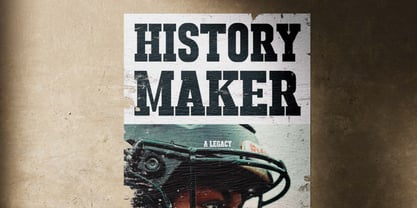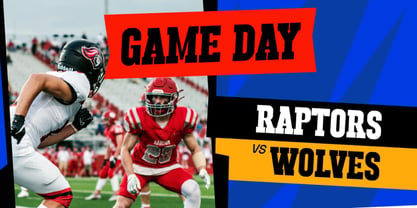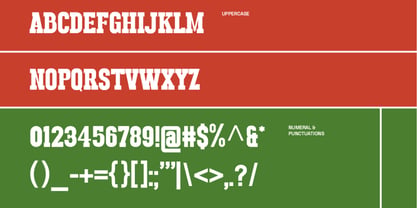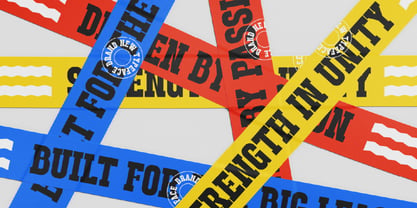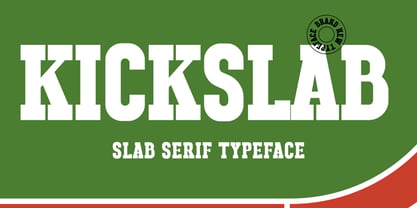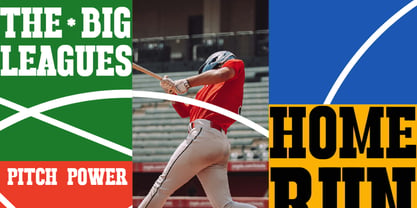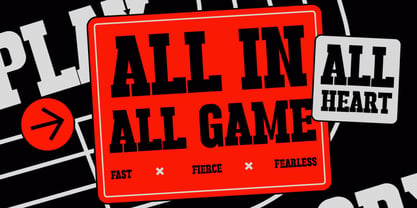
Kick Slab
The Kick Slab Font Family was designed by Moch Rasjid Wiyono and published by Brandearth. Kick Slab contains 1 styles. More about this family
Kick Slab is a bold and athletic slab serif font designed with strong blocky serifs, high-impact shapes, and confident character forms. Its energetic and powerful style makes it a great choice for sports branding, team logos, posters, editorial titles, and bold typographic compositions. The font includes uppercase letters, numerals, and punctuation, giving designers a versatile typeface for dynamic layouts. Relevance and Use Cases is perfect for Sports branding, athletic posters, varsity typography, bold logo design, competition graphics, event promotions, merchandise design, esports identity, technology branding, automotive design, editorial titles, strong typographic layouts, creative agency showcase, industrial advertising, motivational posters, digital cover design, fitness and gym branding.